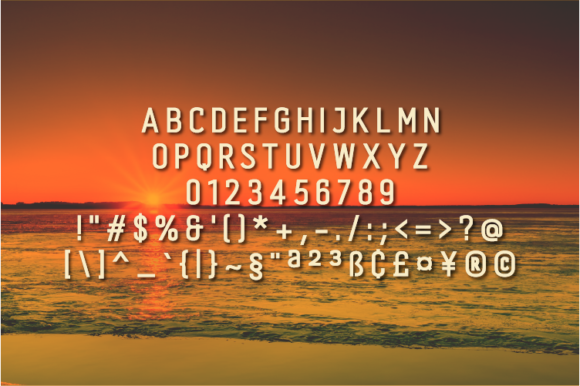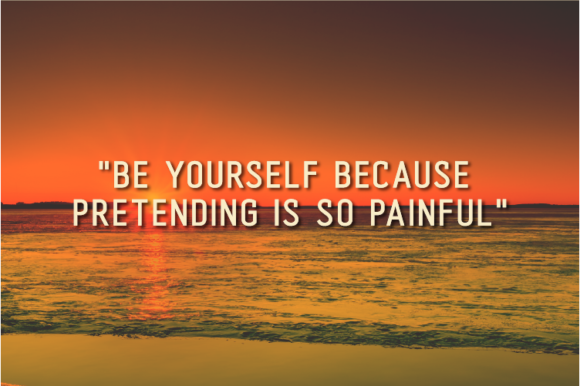
The Font that Stole My Heart: A Deep Dive into Dalonce
I still remember the design project that led me to discover Dalonce. I was working on a branding project for a new coffee shop, and I was struggling to find the perfect font. The client wanted something modern, elegant, and easy to read. I tried countless fonts, but none seemed to fit the bill. That was until I stumbled upon Dalonce. ✨
As soon as I saw it, I knew I had found the one. Its minimal, yet elegant sans serif design was exactly what I needed. I used it for the logo, and it instantly elevated the entire brand. Since then, Dalonce has become my go-to font for a wide range of projects. In this article, I’ll share my honest review, a practical guide on how to use it, and some helpful tips and tricks.
An Honest Review of Dalonce
- ✅ Clean and Simple Design: Dalonce has a neat and simple style that makes it suitable for a wide variety of designs.
- ✅ Elegant and Modern: Its sans serif design gives it a modern and elegant feel that’s perfect for branding, logos, and more.
- ✅ Highly Versatile: Dalonce can be used for both digital and print projects, making it a great addition to any designer’s toolkit.
- ✅ Easy to Read: The font is clear and legible, even at small sizes, making it perfect for body text and captions.
While Dalonce is an amazing font, it’s not perfect. ⚠️ Here are a few things to keep in mind:
- 🤔 Limited Stylistic Options: Dalonce has a simple design, which means it doesn’t have a lot of stylistic options or variations.
- ⚠️ Not Suitable for All Languages: Dalonce is designed for English and other Western languages, so it may not work well for languages with non-Latin scripts.
Dalonce supports OpenType features like glyphs and stylistic alternates, which can add more creativity and flexibility to your design. Here’s how to access these features:
The Story Behind Dalonce
Dalonce was designed by a team of designers who wanted to create a font that was both modern and elegant. The font was inspired by the simplicity and clean lines of modern architecture. The designers aimed to create a font that was highly versatile and easy to read, making it perfect for a wide range of designs.
A: Dalonce is a versatile font that can be used for a wide range of designs. It’s perfect for branding, logos, headings, and body text.
A: Yes, Dalonce is designed to be highly versatile and can be used for both digital and print projects.